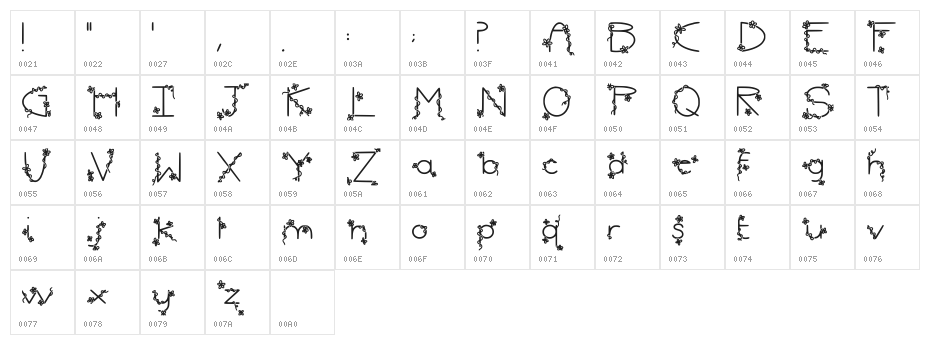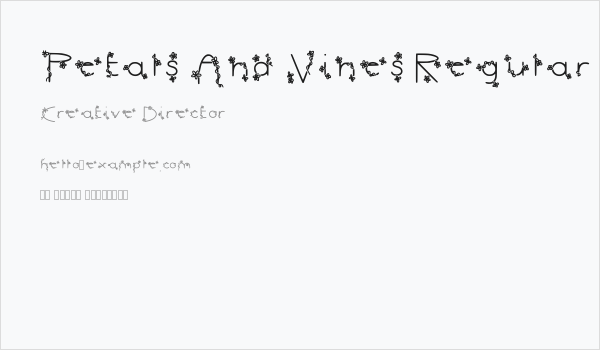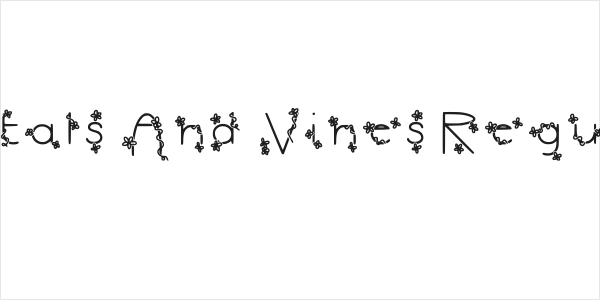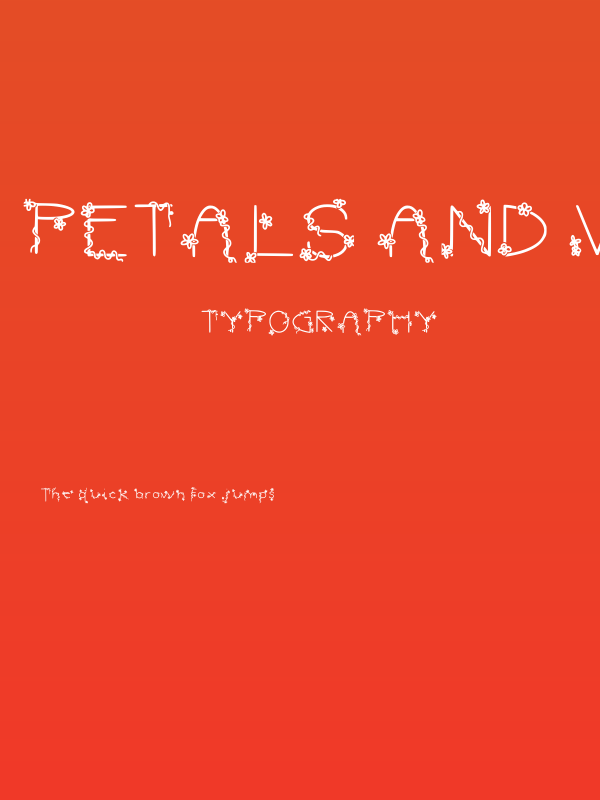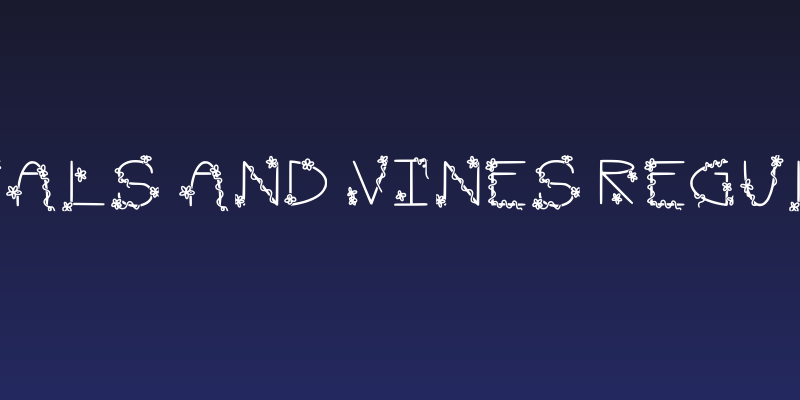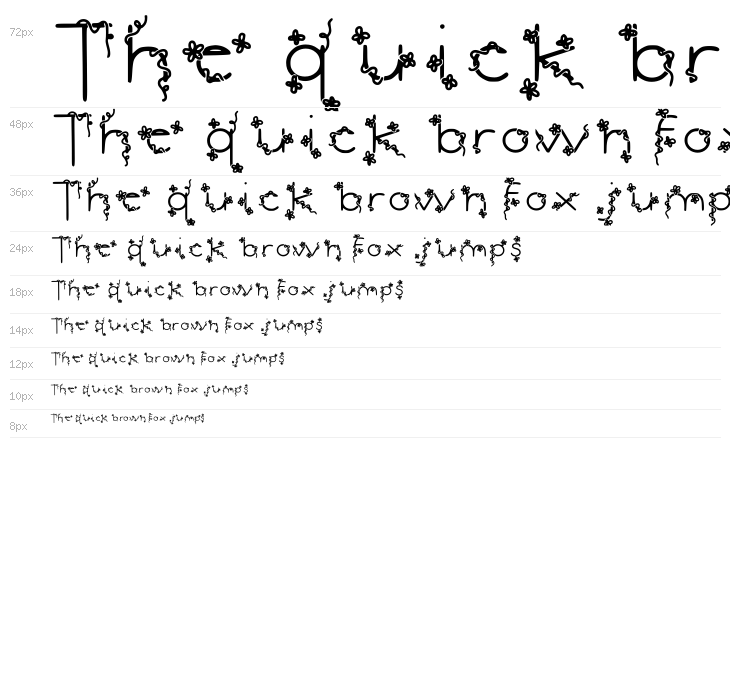
Petals And Vines Regular Font
Petals And Vines Regular Description
This decorative font features intricate floral and vine elements integrated into each character, creating a whimsical and nature-inspired aesthetic. The uppercase and lowercase letters are adorned with delicate petals and twisting vines, giving the font a unique and artistic appearance. The characters maintain a consistent structure, allowing for readability while showcasing the elaborate design. The numbers and special characters follow the same theme, ensuring a cohesive look across all glyphs. This font is ideal for projects that require a touch of elegance and creativity, such as invitations, greeting cards, or branding materials that aim to evoke a sense of nature and beauty.
Use CaseLogos, Headlines, Artistic projects
Proposed ProjectsIdeal for wedding invitations, greeting cards, eco-friendly branding, and artistic posters.